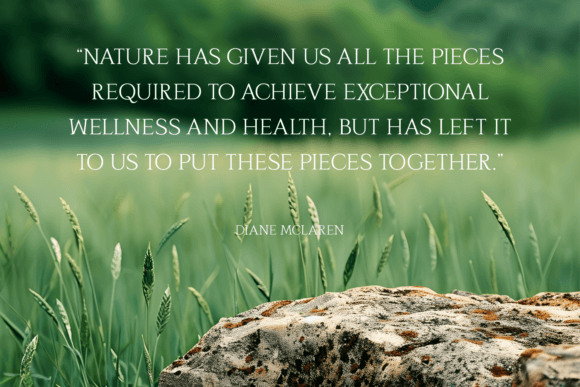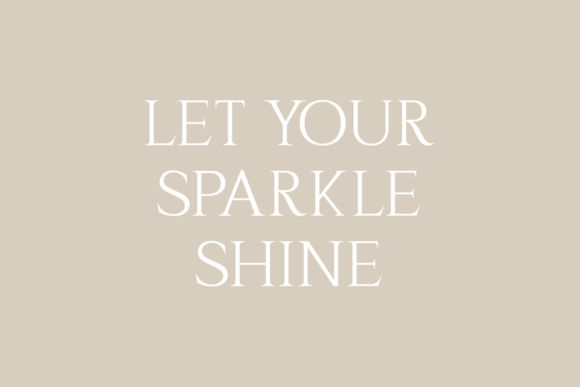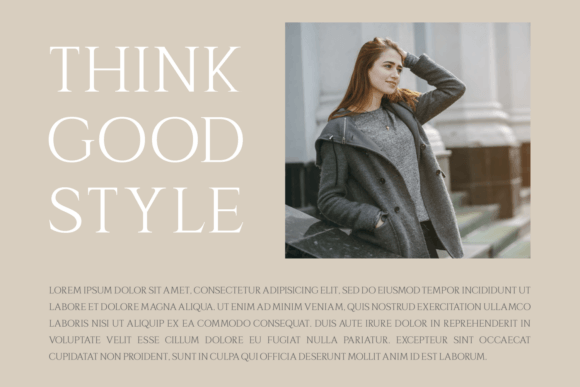
Introduction to Mantric Font Font
Fonts play a crucial role in design, and the Mantric Font font is a typeface that brings both character and versatility to any project. Whether you’re working on a branding project, a website, or a print design, the Mantric Font font offers a unique style that can elevate your work.
Mantric is a modern serif font that combines elegance with a stylish twist.
Its clean lines and unique details make it perfect for both headlines and body text With a contemporary look, Mantric adds a touch of sophistication to any design, making it ideal for branding, invitations, and more.
Key Features of Mantric Font Font
Why Choose Mantric Font Font?
The Mantric Font font is more than just a typeface – it’s a design tool that helps you communicate your message with style and clarity. Its unique character set and versatile design make it suitable for a wide range of applications, from elegant invitations to bold headlines.
With its carefully crafted letterforms and balanced proportions, the Mantric Font font ensures readability and visual appeal across all mediums.
What makes Mantric Font font special?
The Mantric Font font stands out with its unique design, exceptional readability, and versatility across various design applications.